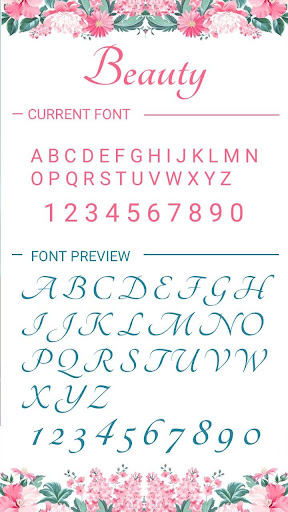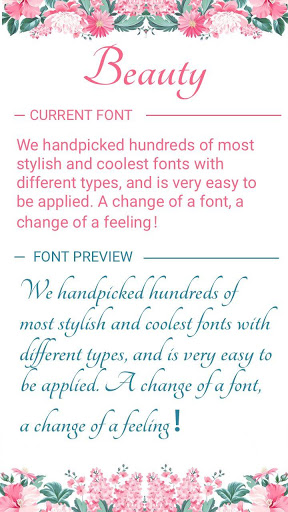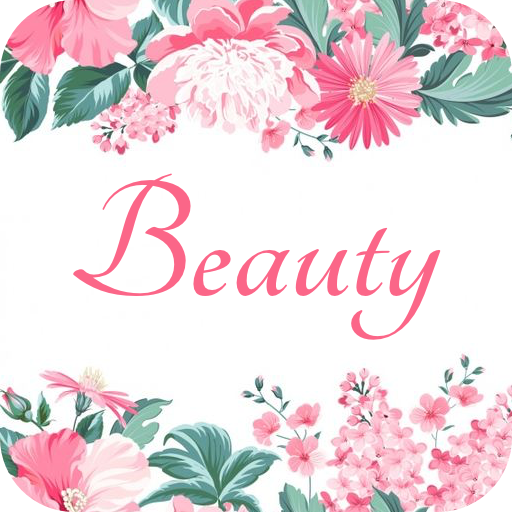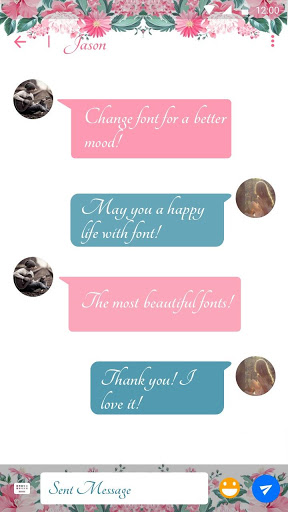
Hundreds of selected fonts style from handwritten fonts like Beauty, such as cute, darker, comic, galaxy, love, pink, sexy written, colorful fonts, clean fonts, candy fonts, etc. Do not wait, just download a font which you like best. And it is compatible with the font program on your phone! 👏👏❤❤🌹🌹